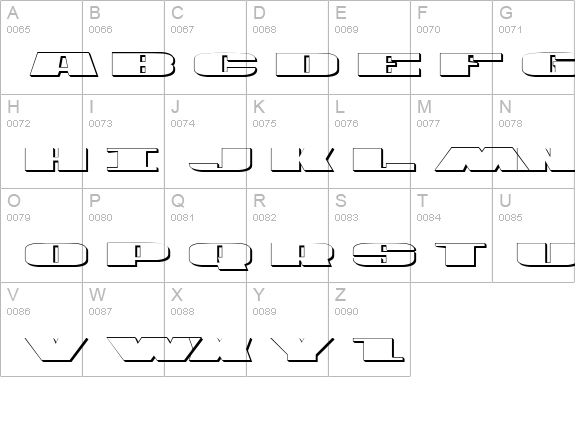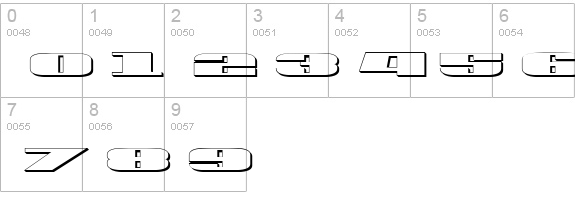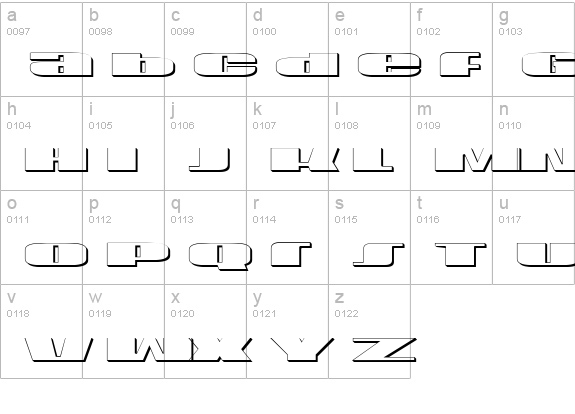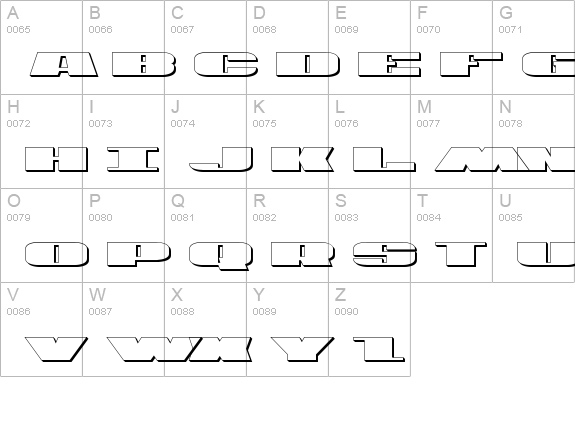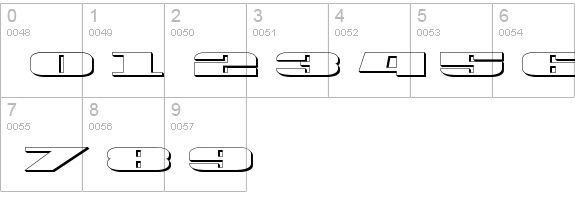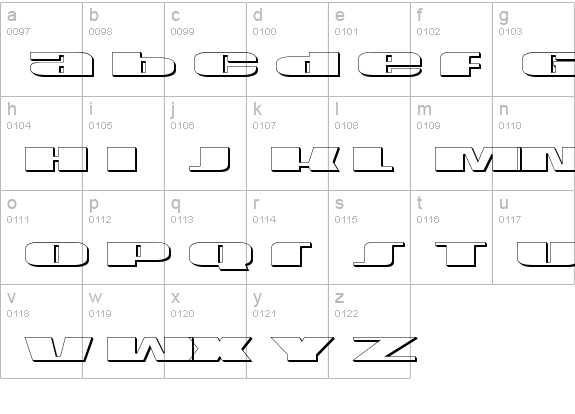
Introducing the captivating U.S.A. Shadow font, a bold and dynamic typeface that commands attention with its striking presence. This unique font is perfect for adding an extra touch of patriotism and strength to any design project. The U.S.A. Shadow font boasts a distinct shadow effect, creating a three-dimensional illusion that adds depth and dimension to your text. Its sharp and angular letterforms exude a sense of power and authority, making it an ideal choice for headlines, logos, posters, and other impactful designs. One of the most remarkable aspects of the U.S.A. Shadow font is that it is freely available to download at FontsMarket.com. This means that you can easily access and use this incredible typeface without any cost or restrictions. Whether you're a professional designer or a creative enthusiast, this font allows you to unleash your creativity without any limitations. The versatility of the U.S.A. Shadow font is another reason why it stands out from the crowd. With its strong and commanding presence, it can be used effectively in a variety of design projects, from branding and packaging to social media graphics and website headers. Its bold strokes and stylish shadow effect instantly catch the eye, ensuring that your message will be noticed and remembered. In addition to its visual impact, the U.S.A. Shadow font also offers excellent legibility, making it suitable for both print and digital applications. Whether you're using it for large-scale designs or small text passages, this font maintains its clarity and readability, ensuring that your message is effectively conveyed to your audience. With its striking appearance, free availability, and versatile nature, the U.S.A. Shadow font is a must-have for every designer's toolkit. Download it today from FontsMarket.com and unleash its power to elevate your designs to new heights. Let the U.S.A. Shadow font be the bold and impactful element that sets your creations apart from the rest.